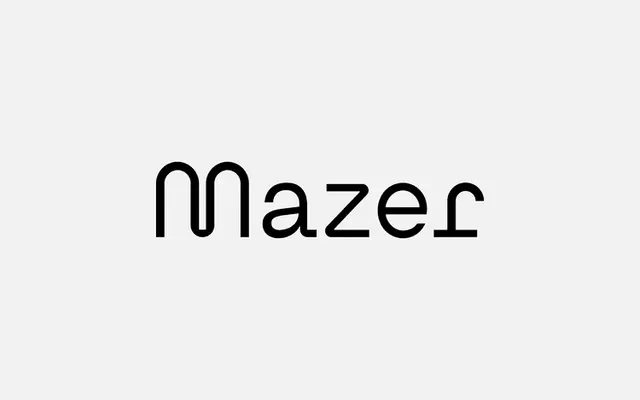
A hybrid display face that crosses geometric sans proportions with monospaced serif construction and sharp angular turns.
Mazer sits at an unusual intersection, pairing the even spacing logic of a monospaced serif with the clean geometry of a sans. Sharp corners give it an angular, almost technical character that separates it from softer geometric display faces. Available as a single OTF file, it suits headlines and short display settings where its structural oddity reads as intent.
Mazer is classified as display due to its hybrid nature, blending geometric sans construction with monospaced serif elements and sharp angular turns that make it unsuitable for body text.